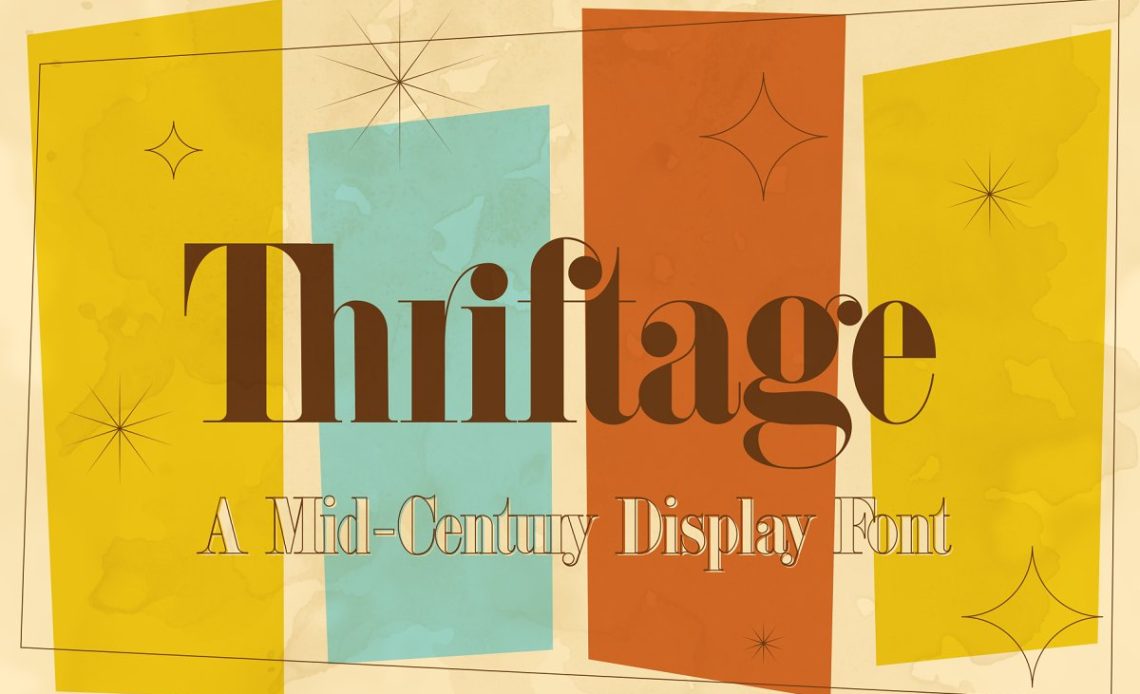
Introducing Thriftage Font + Extras, the best font for food websites designed by Jordan Wilson. This serif font is bold, stylish, and memorable, embodying the aesthetic demand of the early 1960s. Thriftage is the perfect font for those looking to create a vintage, Mad Men-inspired look that meets modern standards.
Thriftage's quirky personality and condensed structure make it the ideal choice for creating prominent displays and titles. With a full set of upper and lowercase letters, numerals, and a large range of punctuation, this font offers endless possibilities for expressing your creativity.